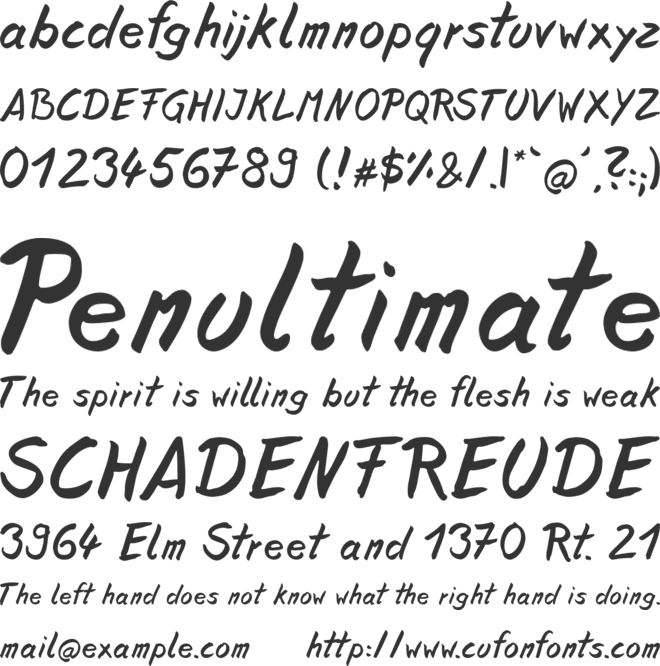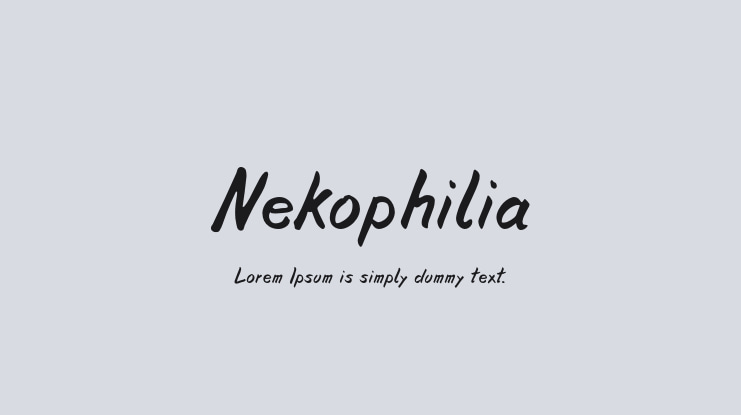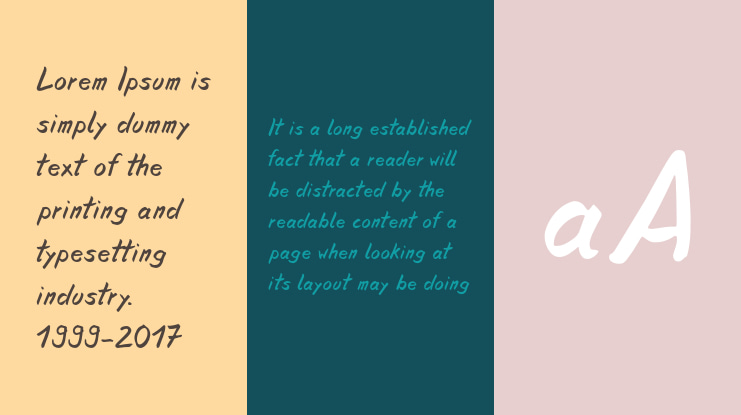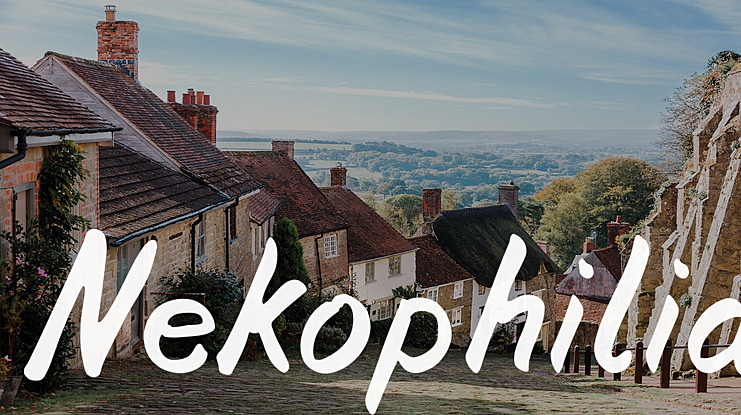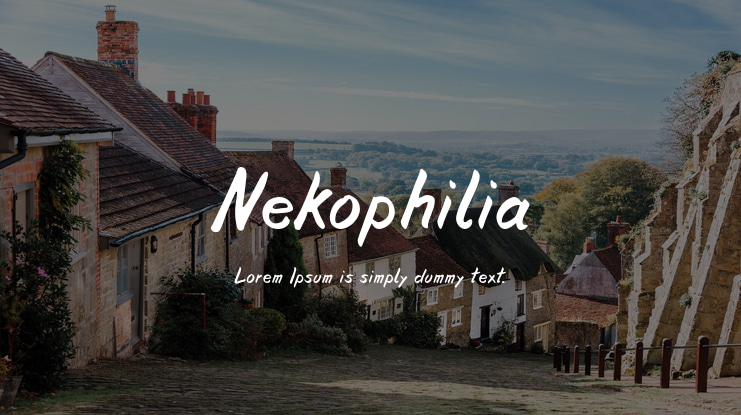
Nekophilia Font
This font is a comic font which was created to mimic the handwriting of Melanie Kuhl. It also contains 190 emojis created by Philipp Böckmann which can also be accessed via ligatures. For more information about this feature and the font overall visit: